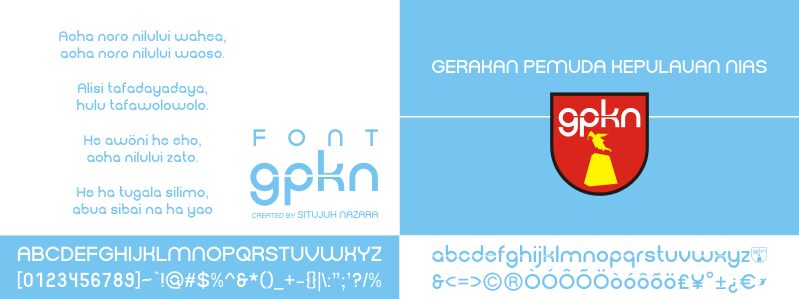
Gpkn is a free modern display font with broad geometric forms and a clean, engineered silhouette. Uniform strokes, circular curves, and sharply simplified joins give the lettering its unconventional profile.
Its futuristic geometry suits technology branding, yet the rounded shapes also fit fashion packaging. Posters and music graphics can turn the unusual arches and deep curves into a recurring motif. The design is especially convincing for subjects tied to architecture, digital culture, and experimental art.
gpkn
Situjuh Nazara